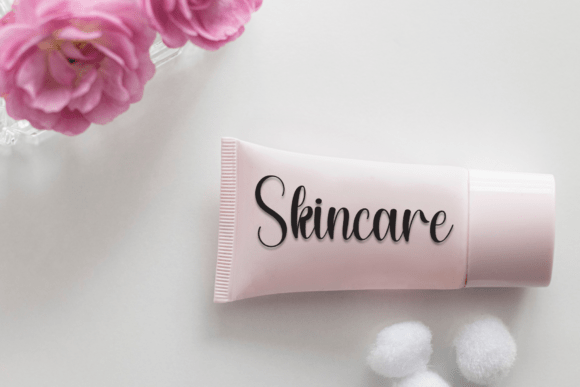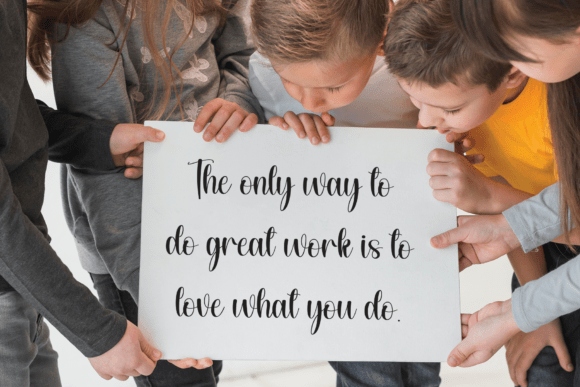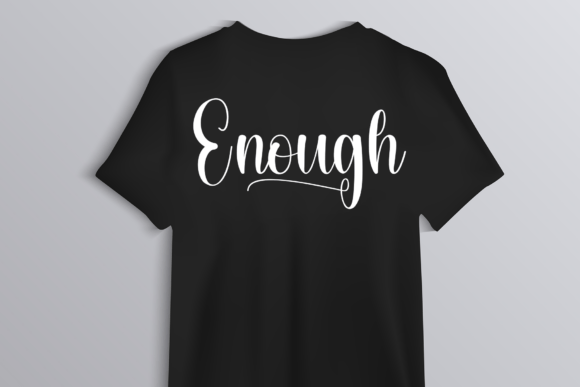
Introduction to Hey Bunny Font
Hey Bunny is a stylish handwritten script font that captures elegance and playfulness in every stroke.
With flowing curves and a natural rhythm, it adds a personal, charming touch to invitations, branding, and social media Its graceful design brings warmth, sophistication, and creativity to any project.